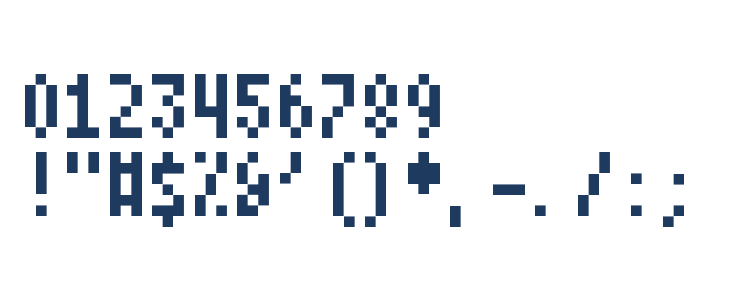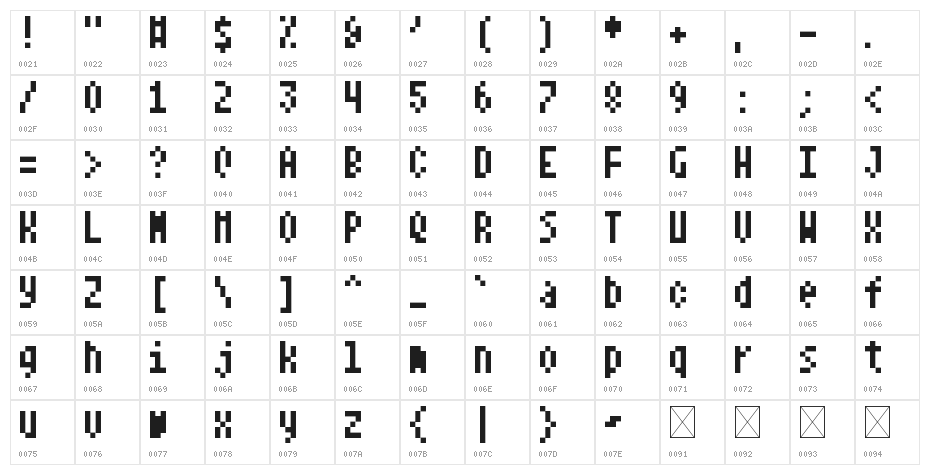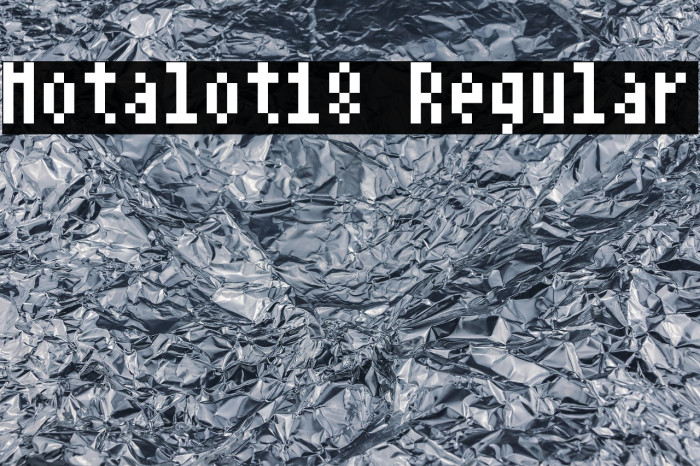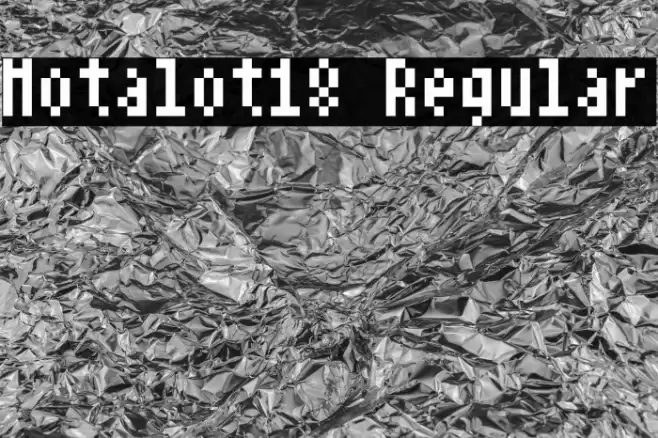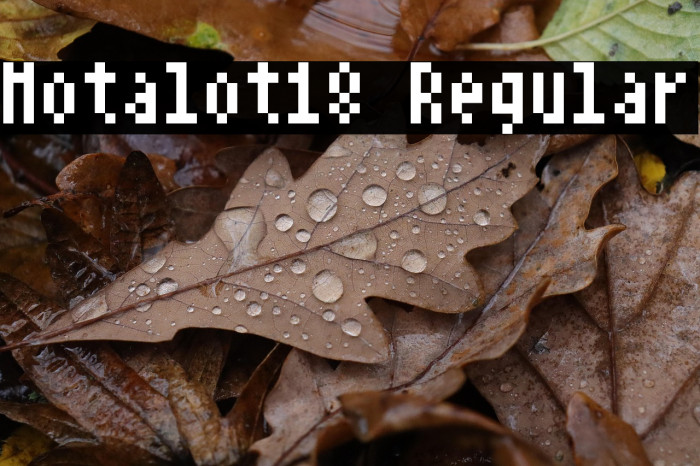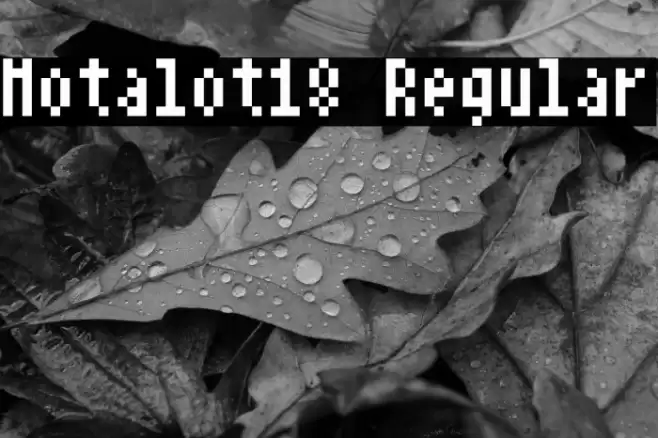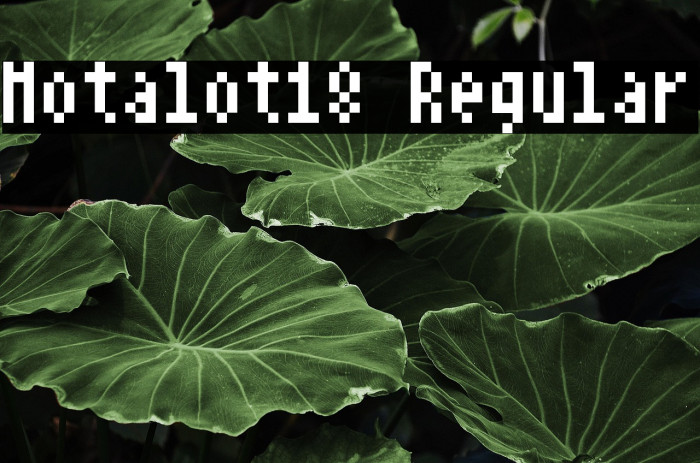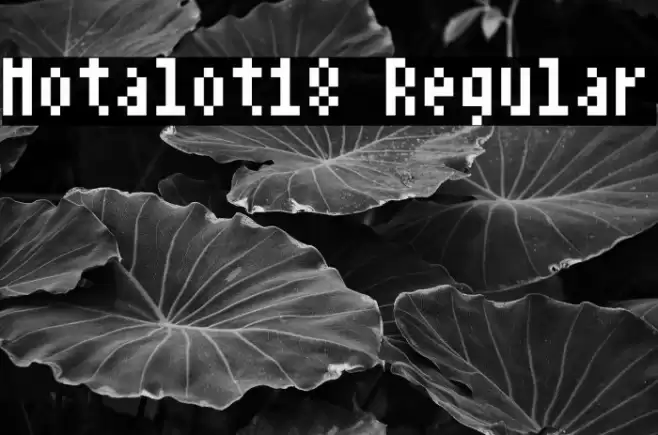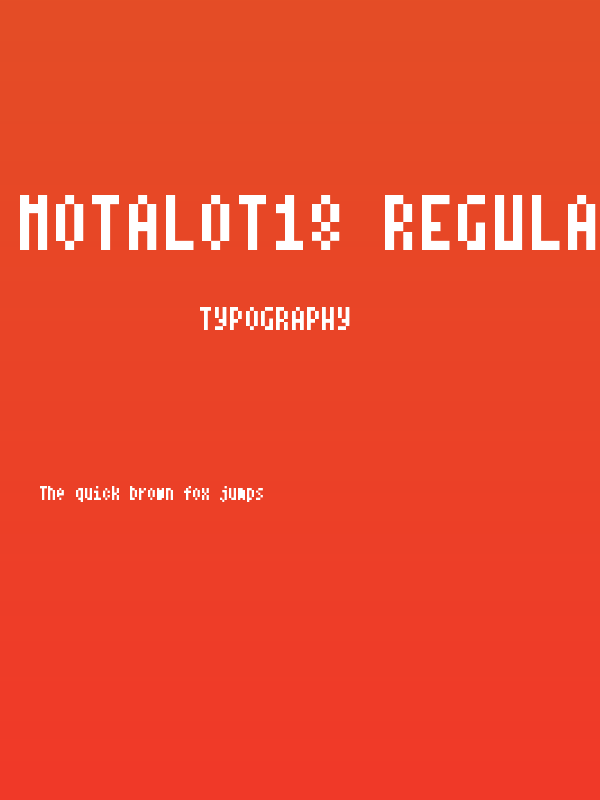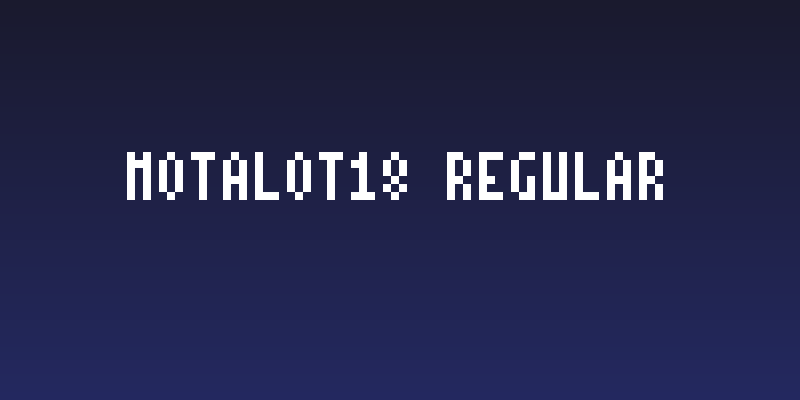
Notalot18 Regular Font
Notalot18 Regular Description
This font features a pixelated, blocky design reminiscent of early digital displays and retro video games. Each character is constructed with uniform square blocks, giving it a distinctly digital and geometric appearance. The uppercase and lowercase letters maintain a consistent height, with minimal differentiation between the two, enhancing its monospaced feel. Numbers and special characters follow the same pixelated style, ensuring uniformity across all glyphs. The font's simplicity and clarity make it highly legible, even at smaller sizes, while its nostalgic aesthetic evokes a sense of vintage computing.
| Use Case | Headlines, Logos, Digital Displays |
| Proposed Projects | Ideal for retro-themed designs, video game graphics, digital art projects, and tech-related branding. |